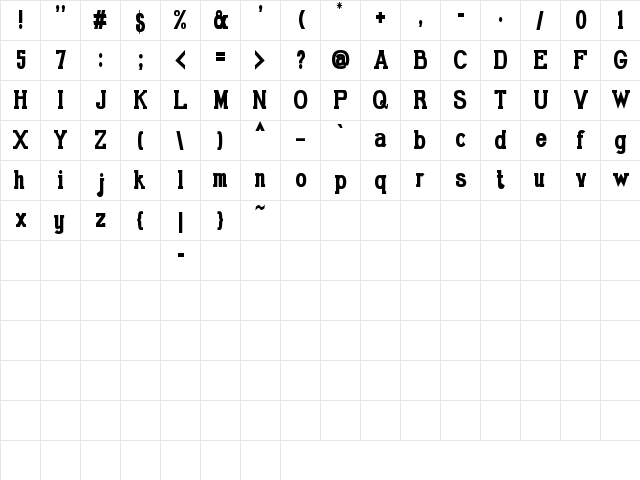
Complete Gabriel Serif Condensed Bold glyph index. Displaying only characters natively supported by Gabriel Serif Condensed Bold font.
Gabriel Serif Condensed carries the refined structure of traditional serif typography, with bracketed terminals and considered proportions that communicate credibility and craft. Its bold stroke weight gives it real presence on the page. Its narrow stance lets it pack a punch even in space-constrained designs.